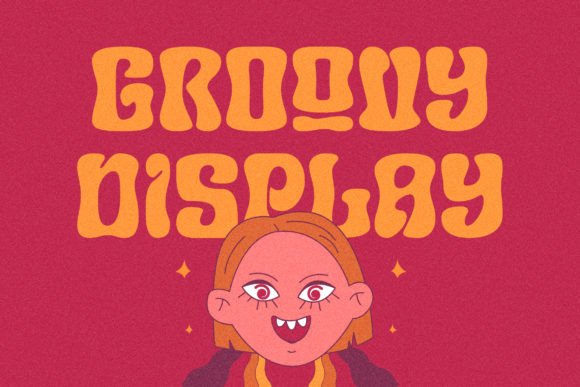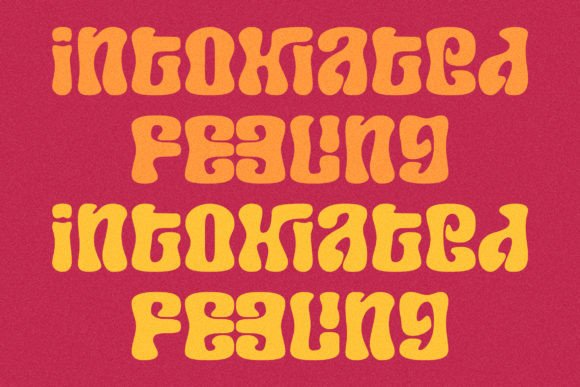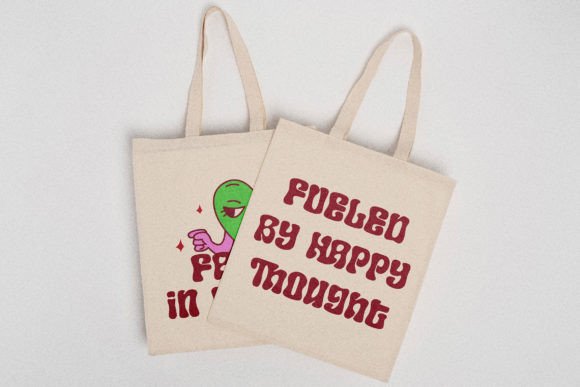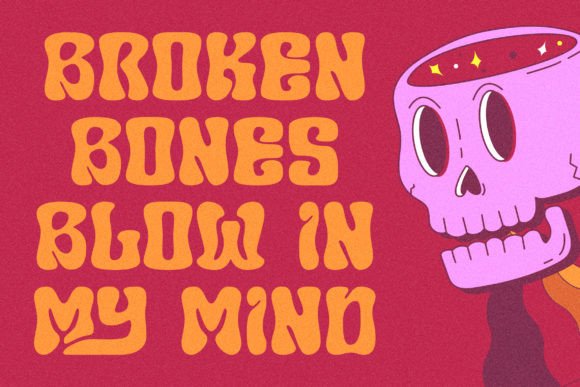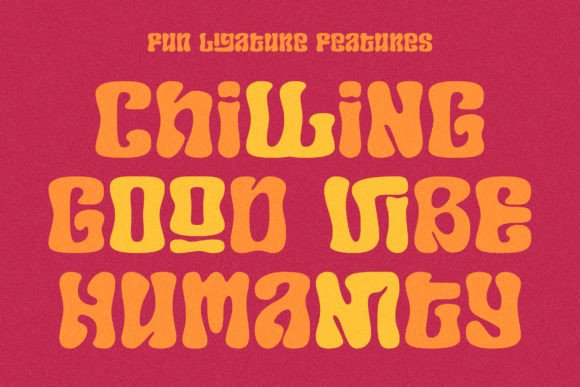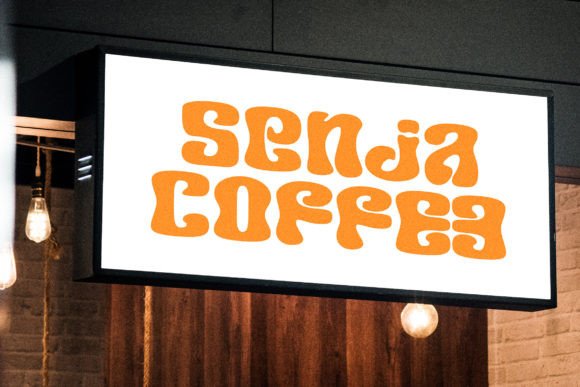
Introduction to Psychartact Font Font
Fonts play a crucial role in design, and the Psychartact Font font is a typeface that brings both character and versatility to any project. Whether you’re working on a branding project, a website, or a print design, the Psychartact Font font offers a unique style that can elevate your work.
This is a retro display font that captures the essence of the psychedelic era.
The bold, colorful letters feature intricate, eye-catching patterns that exude trippy vibes and a free spirit This font is perfect for creating catchy titles and headlines for posters, album covers, merchandise, souvenirs, and other retro-inspired designs.
Key Features of Psychartact Font Font
Why Choose Psychartact Font Font?
The Psychartact Font font is more than just a typeface – it’s a design tool that helps you communicate your message with style and clarity. Its unique character set and versatile design make it suitable for a wide range of applications, from elegant invitations to bold headlines.
With its carefully crafted letterforms and balanced proportions, the Psychartact Font font ensures readability and visual appeal across all mediums.
What makes Psychartact Font font special?
The Psychartact Font font stands out with its unique design, exceptional readability, and versatility across various design applications.